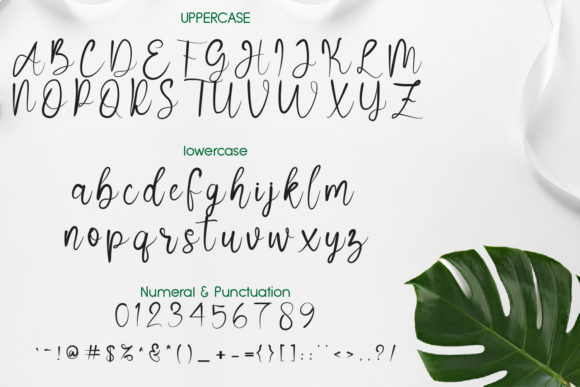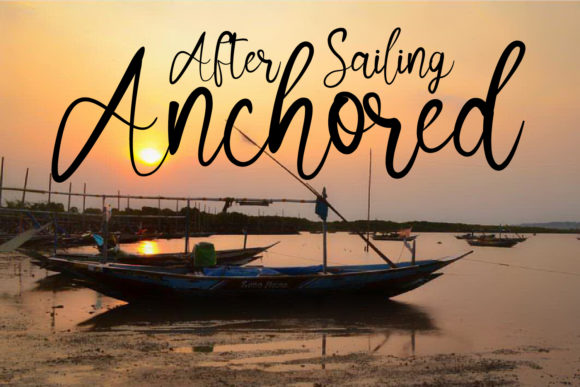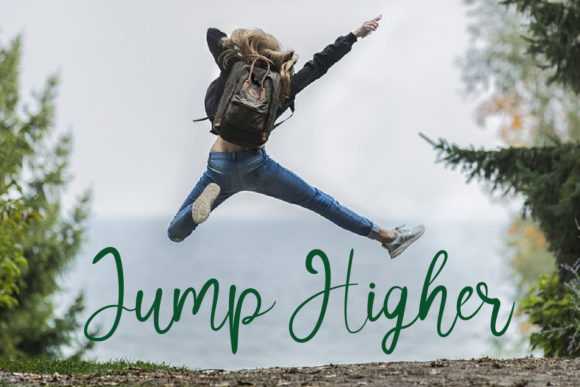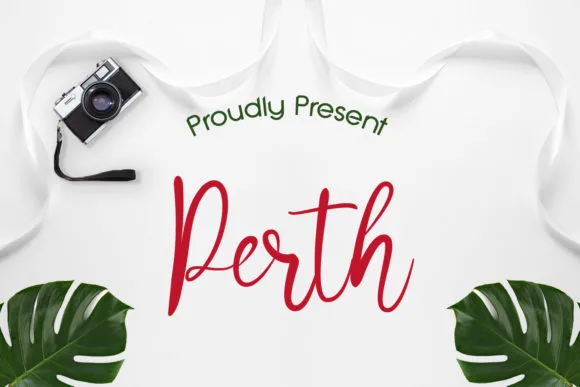
About Perth Font
Perth is a modern handwritten font with an elegant touch. It can be used for various purposes, such as headings, signature’s, logos, wedding invitations, t-shirts, letterheads, signage’s, labels, news, posters, badges, and much more!